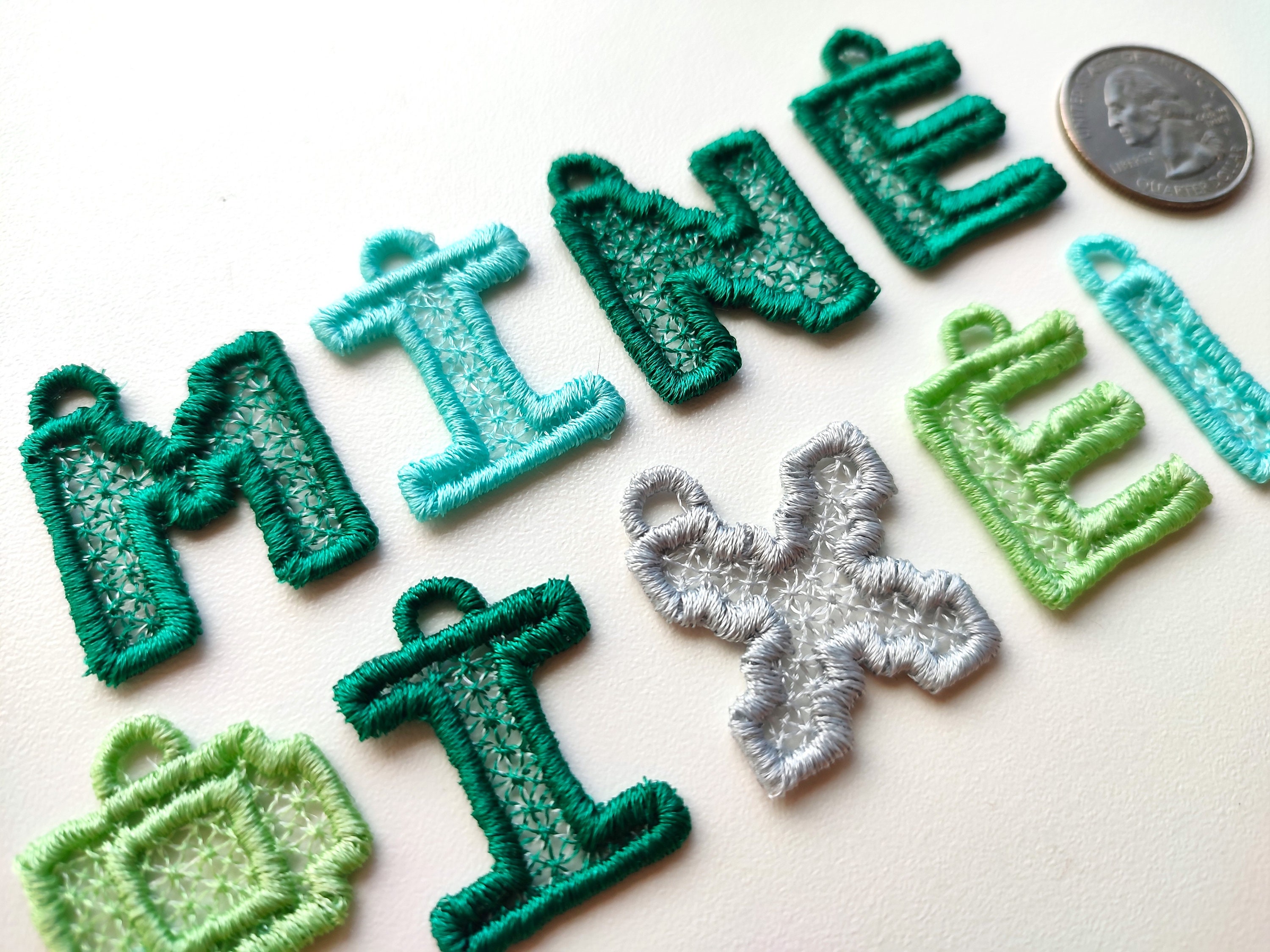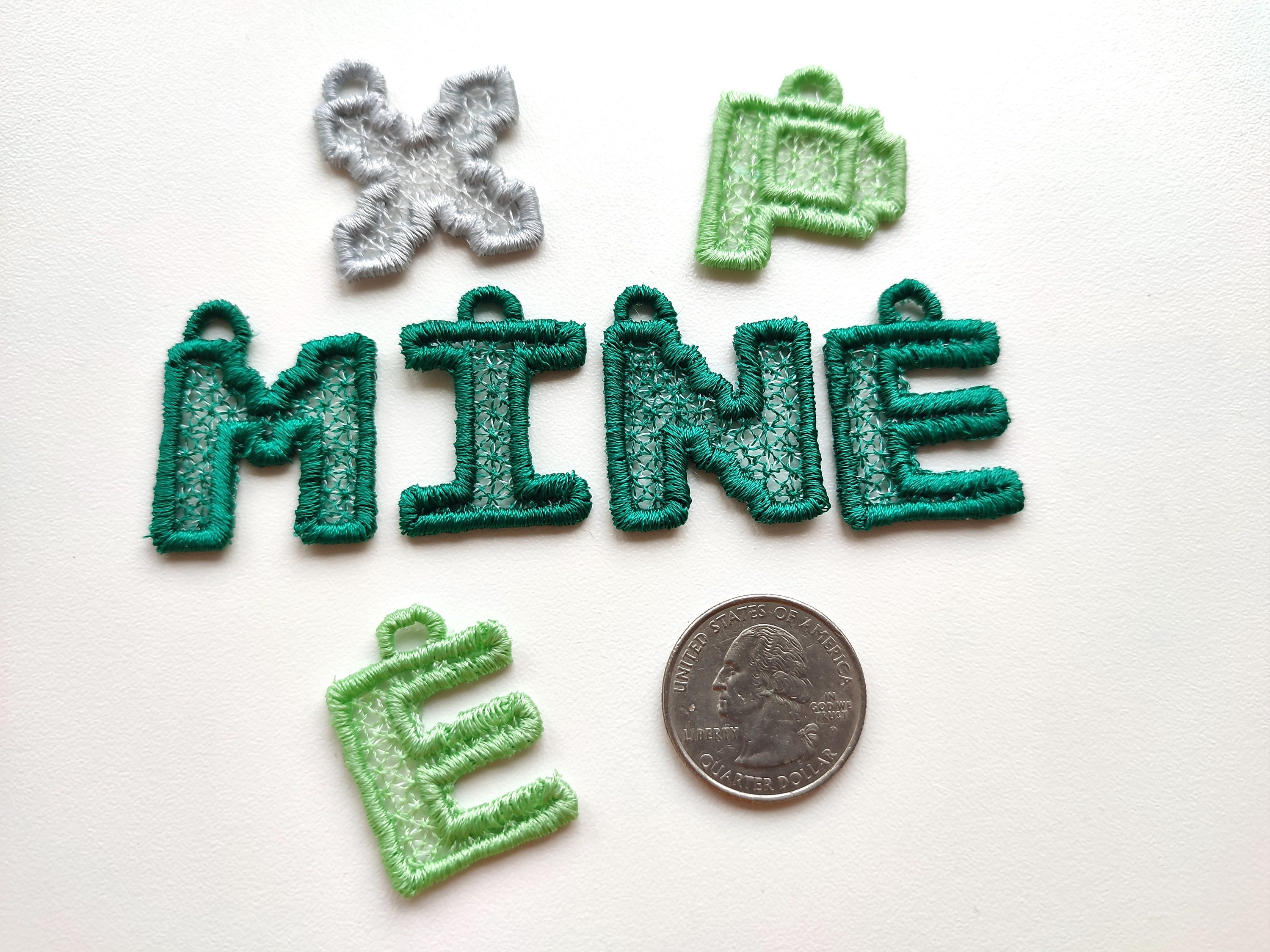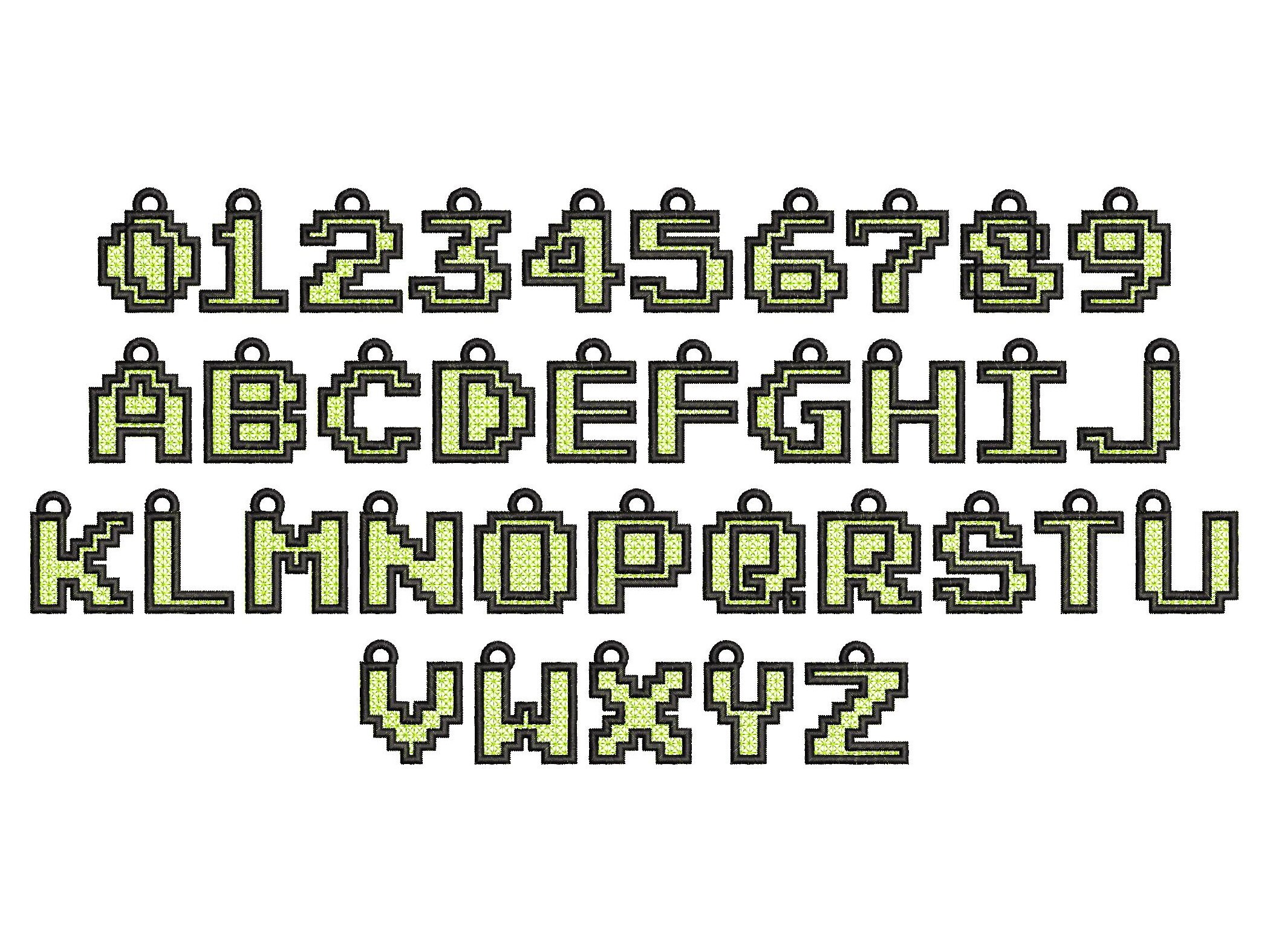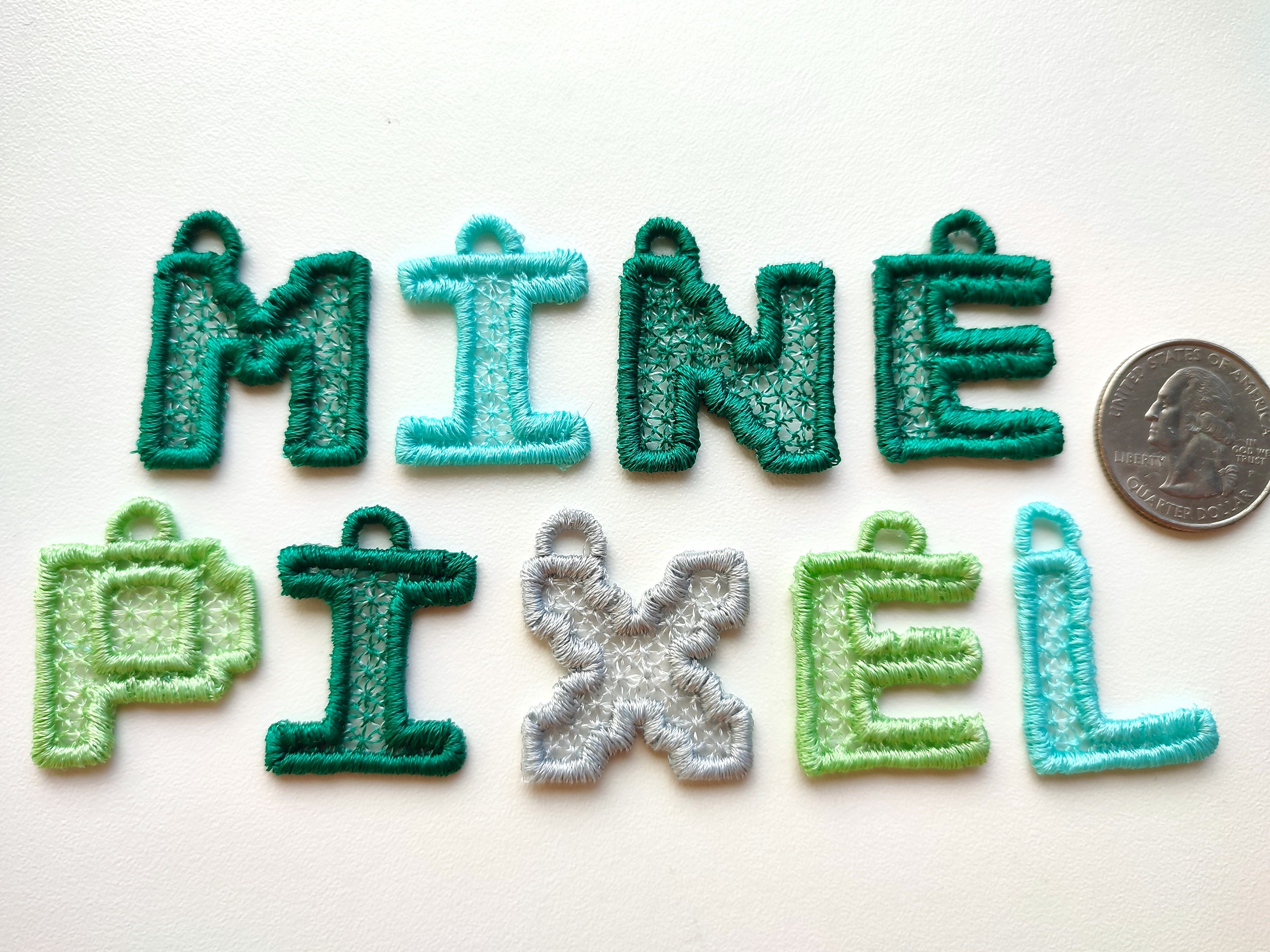
Miner bricks Pixel Lace Font FSL free standing lace Hanging Monogram letters machine embroidery designs, kids boy alphabet in assorted sizes
Uppercase A-Z
Freestanding lace! The letters are stitched onto a non-woven water-soluble stabilizer.